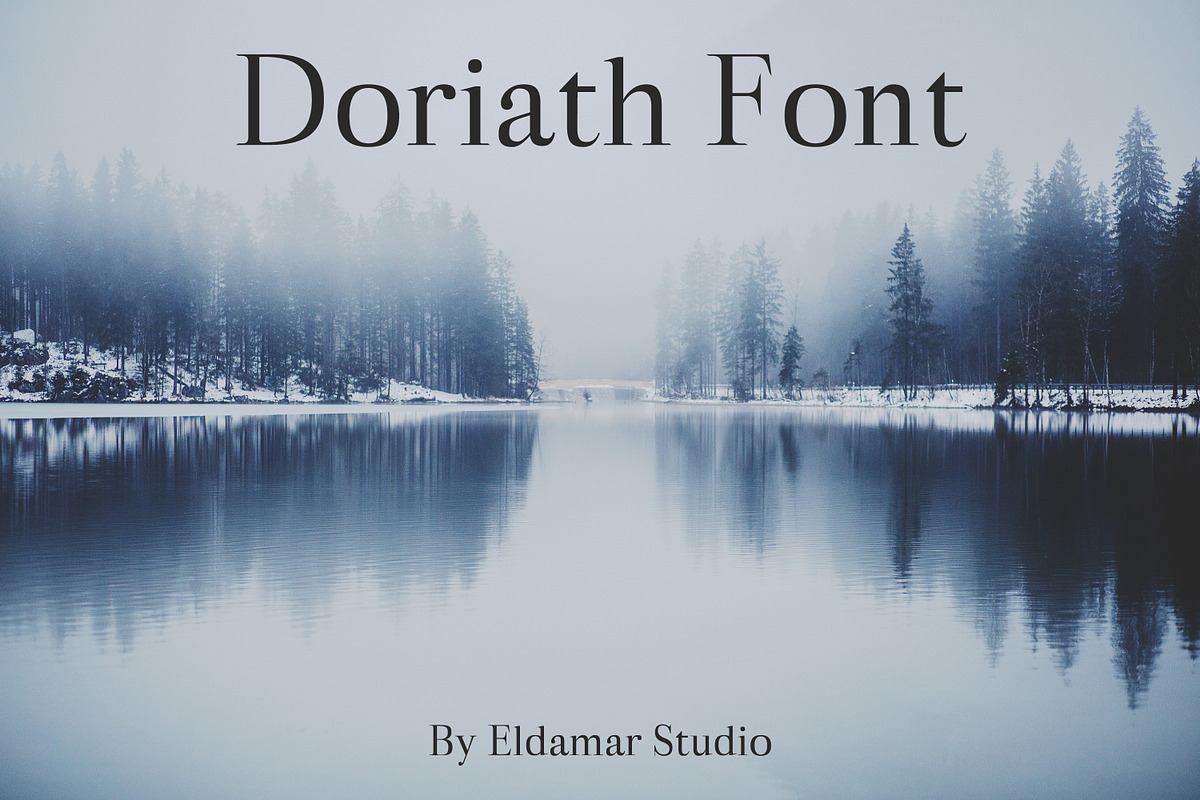
Doriath Font is a beautifully crafted typeface that combines elegance with a touch of fantasy. Ideal for creative projects, fantasy-themed designs, and unique branding, Doriath offers a distinctive look that will make your designs stand out. Download Doriath Font Free Download today and bring a magical feel to your creative works!